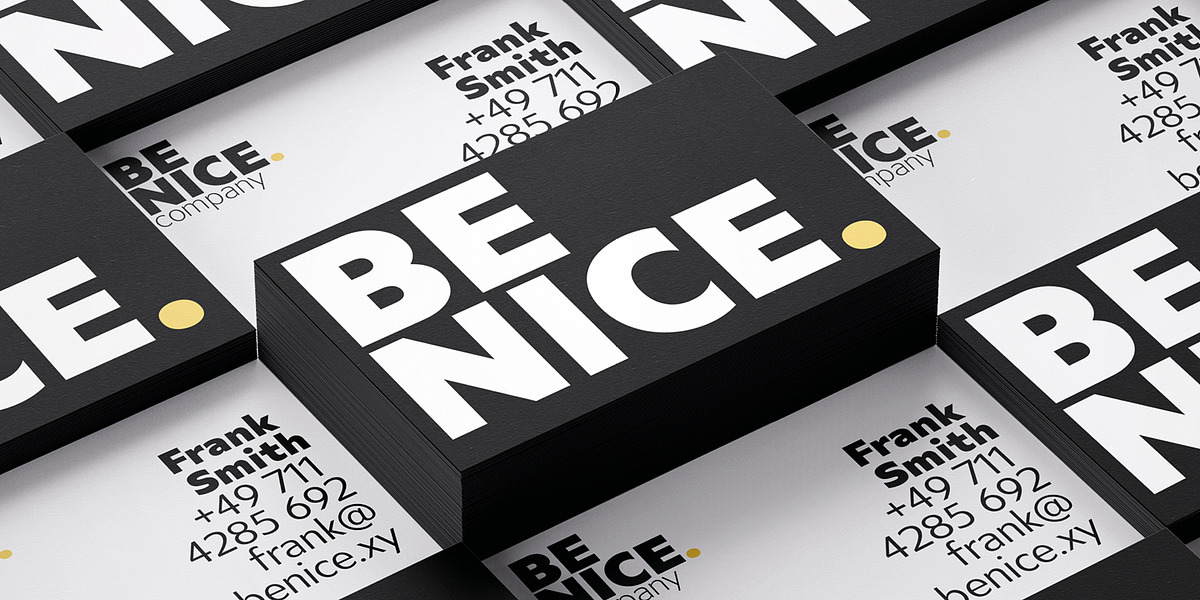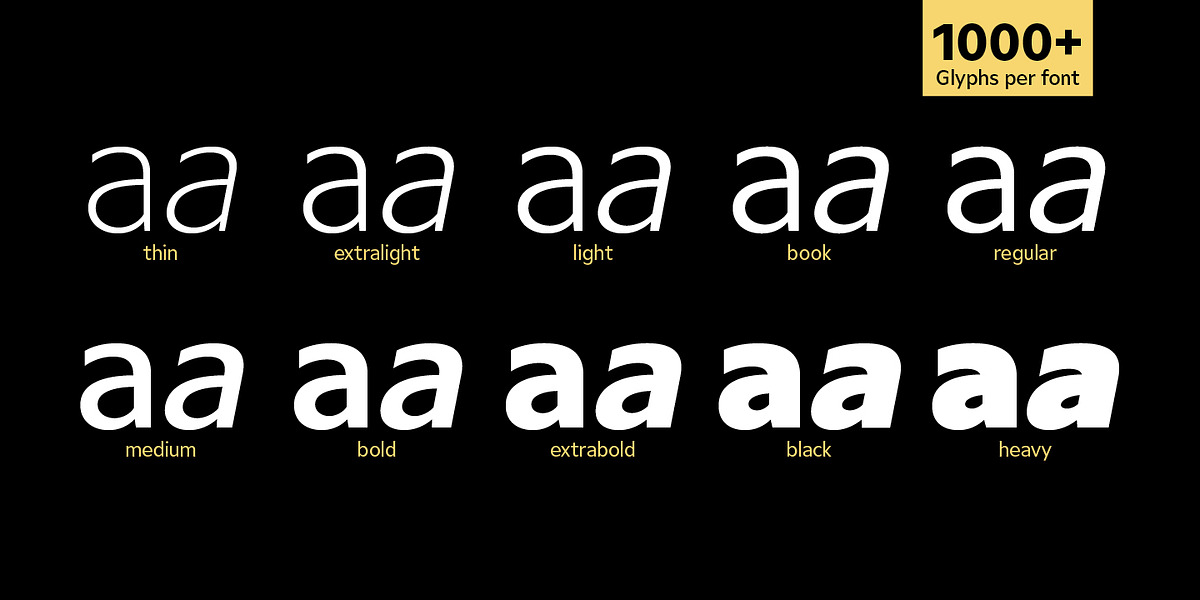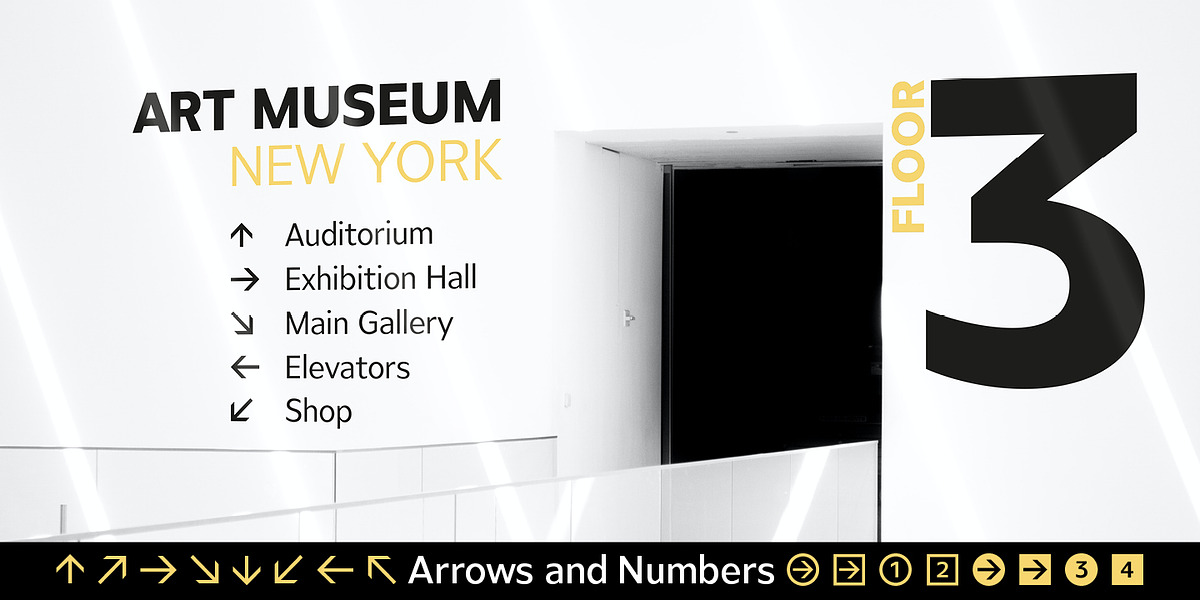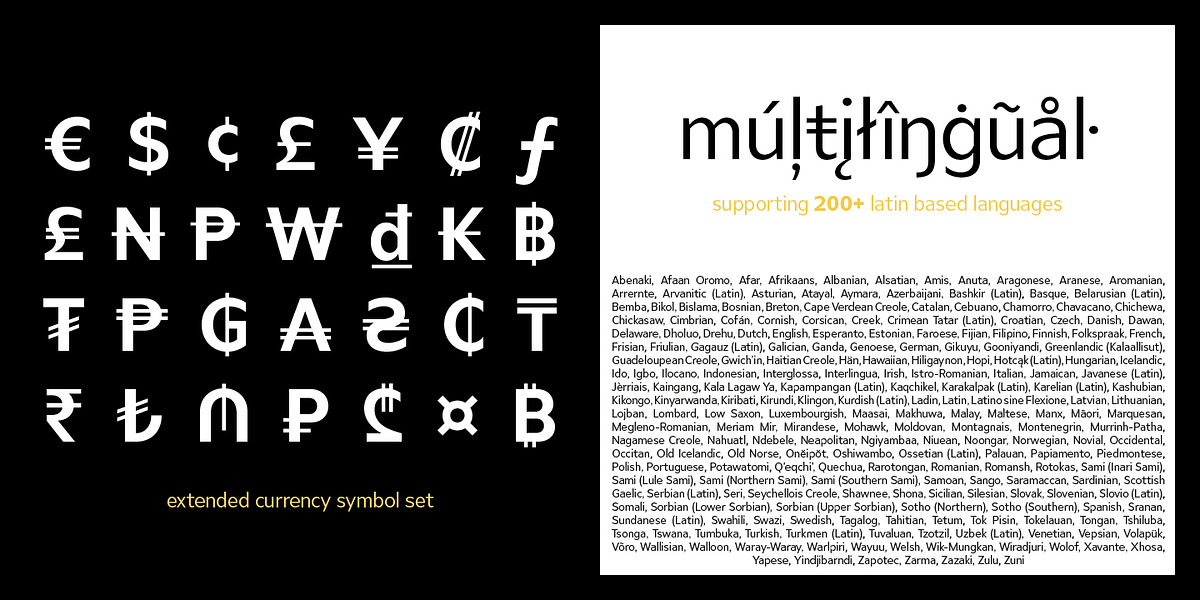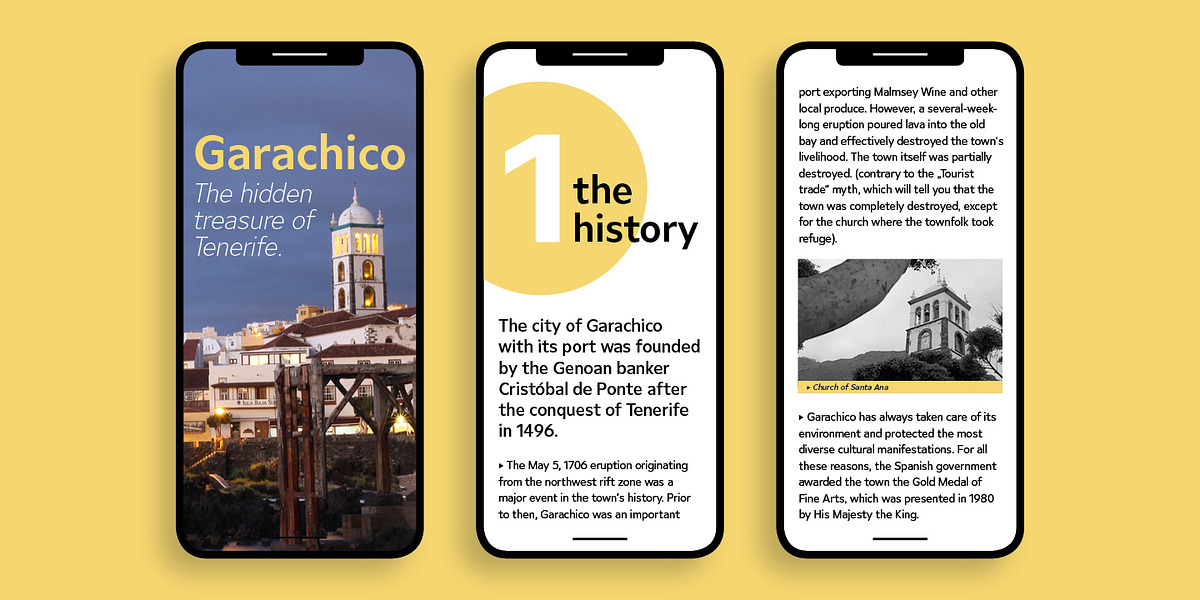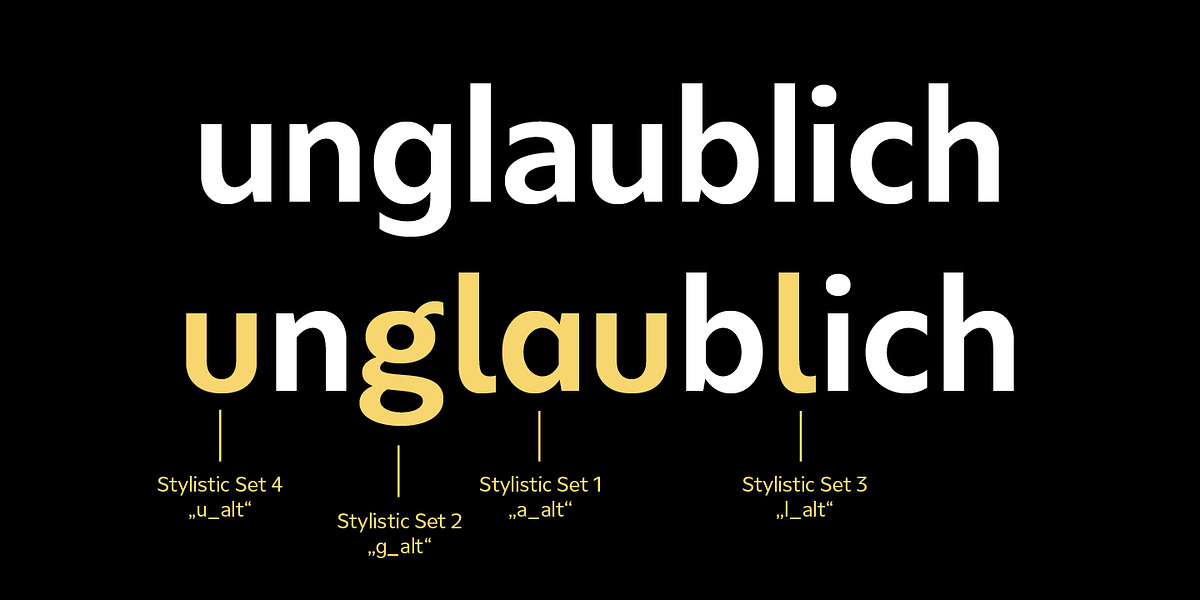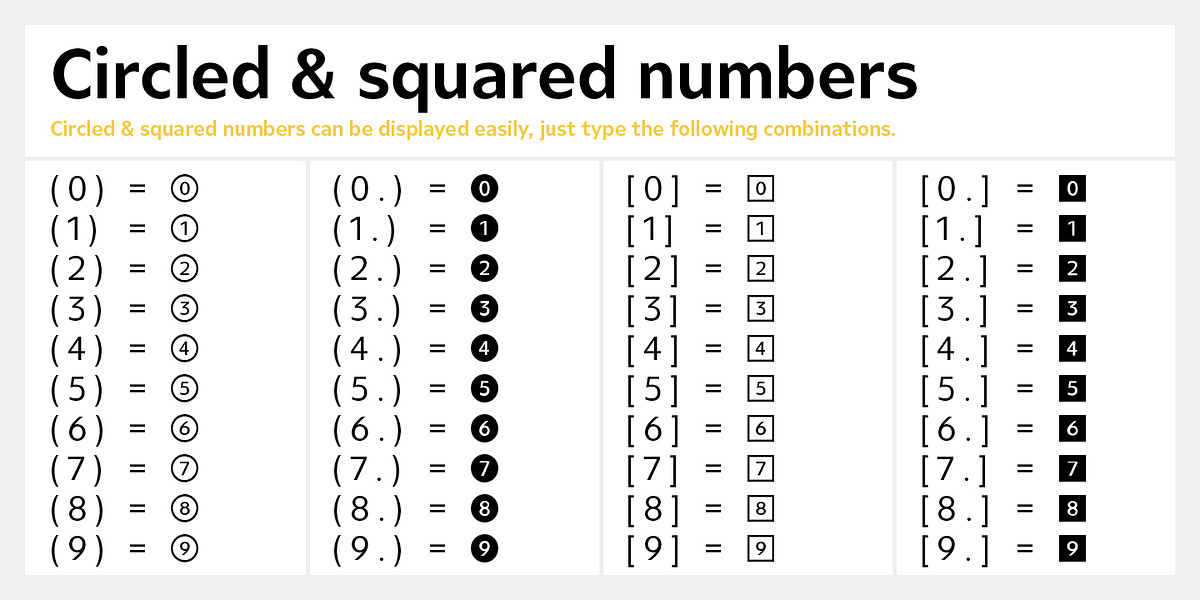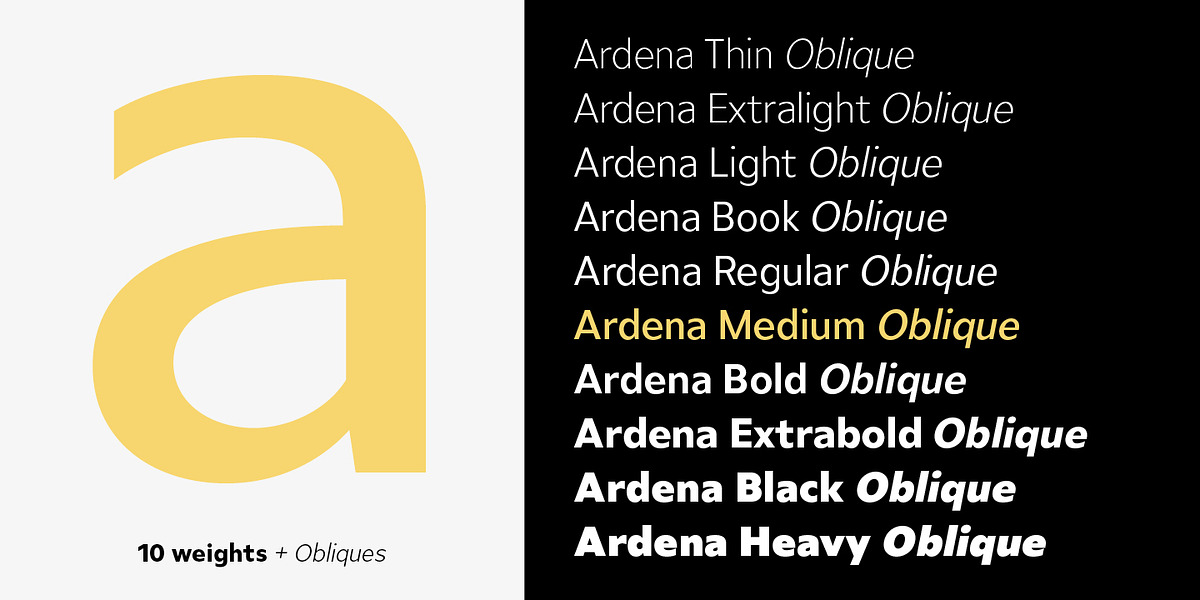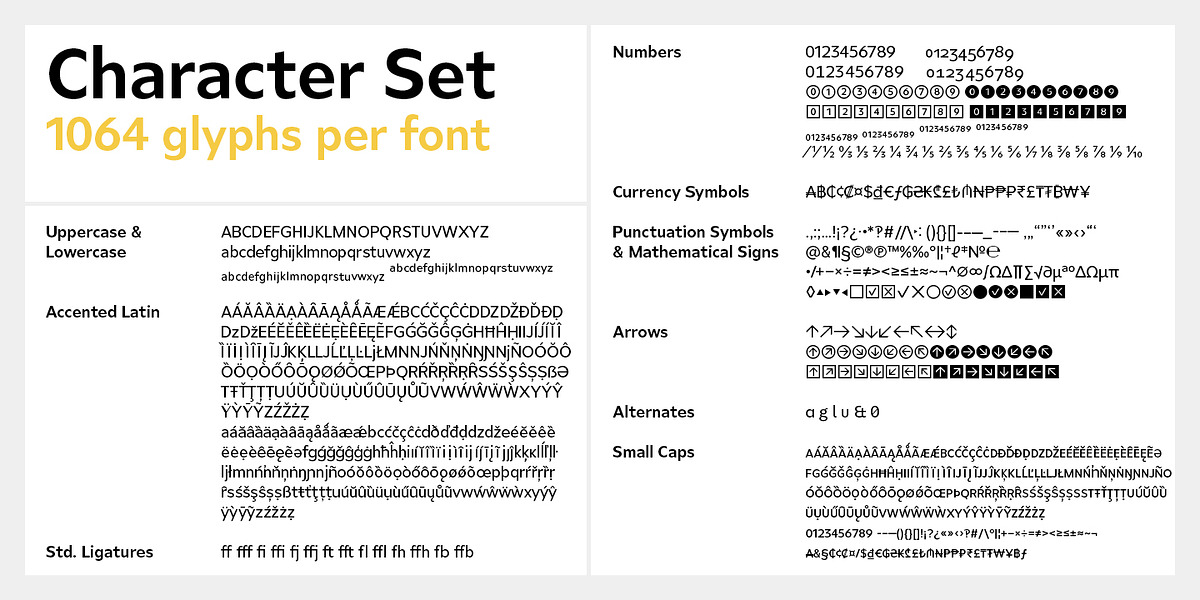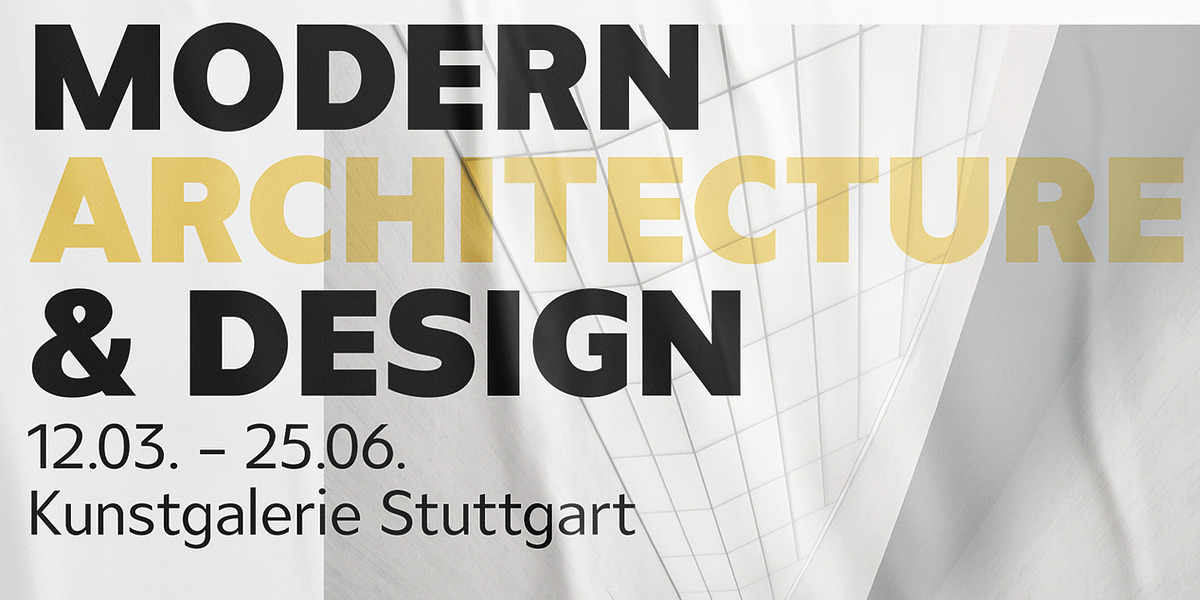
Ardena
Ardena is a modern humanist sans-serif typeface designed for versatility. Its open, rounded forms give it a pleasant and confident appearance while remaining neutral and clear. The extensive weight range makes it suitable for both strong headlines (thinner and thicker weights) and body text (middle weights). 1064 characters covering over 200 languages and a host of OpenType features like alternative characters, small caps, and automatic fractions make Ardena a true typographic workhorse. Notably, its extensive range of arrows and numbers, easily implemented through OpenType features, makes it particularly well-suited for orientation and guidance systems.